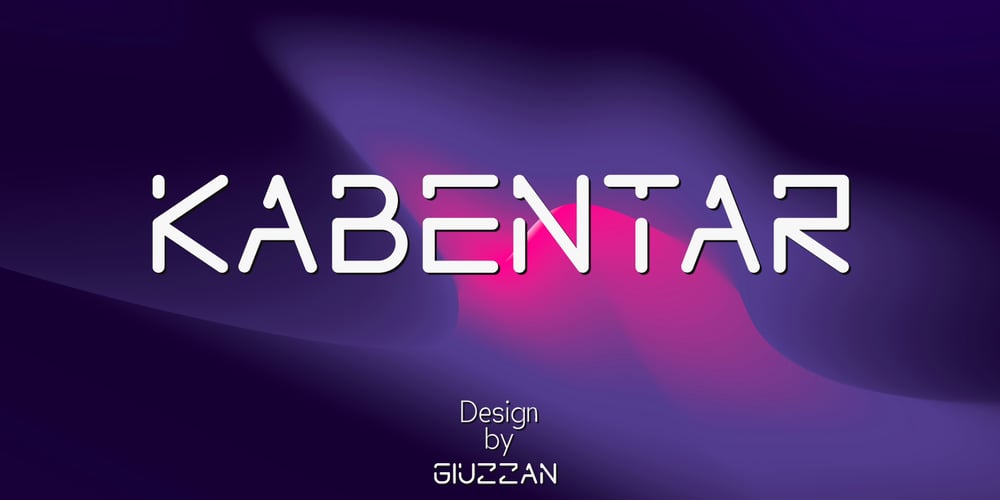
Kabentar
Kabentar font
Kabentar Font Family was designed by Muhamad Fauzan and published by Giuzzan. Kabentar contains 1 styles and family package options. Kabentar is a font that seamlessly blends sleek geometry with flowing curves, exuding dynamic energy and captivating appeal. Each letterform embodies a harmonious balance between digital and organic, inviting you to redefine your designs with a touch of futuristic elegance. Embrace the infinite possibilities of typography with Kabentar and propel your creations into the world of tomorrow.